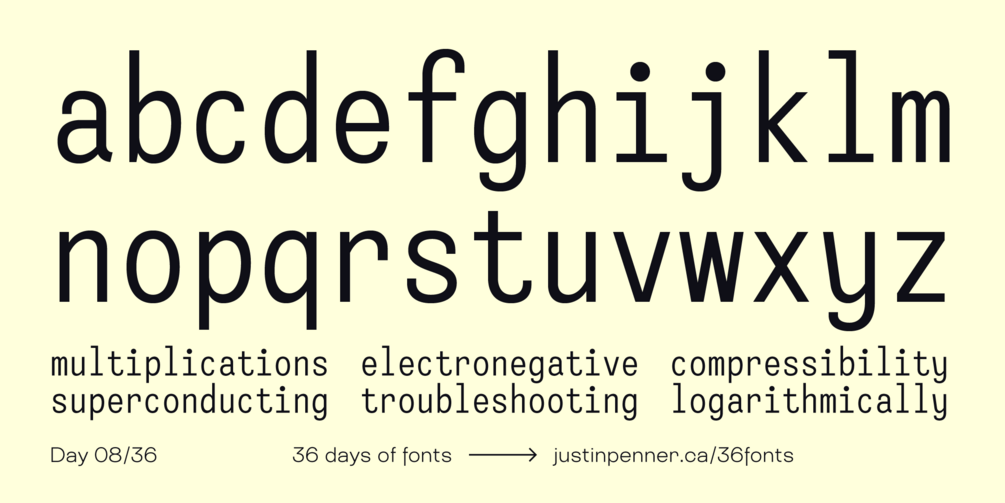
36 Days of Fonts: Day 08
Mono
I have never attempted a monospaced typeface, and I wanted to give it a try. This 36-day project is all about learning how to draw a variety of type styles, and what unique processes go into the designs of each. There are a lot of tricks to help balance the letter widths in a monospace font, the most obvious being the horizontal bars (or serifs) on the /i and /l. My design isn't very refined yet, but I'm liking some of the personality.